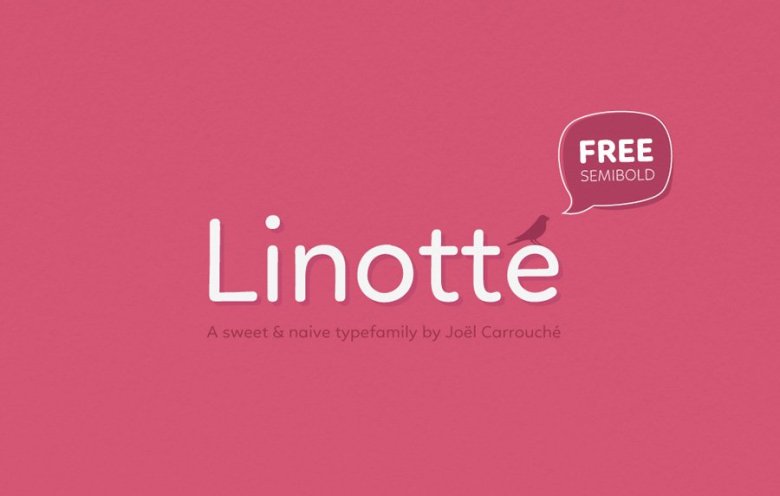
Linotte SemiBold
Linotte is a rounded sans family with good vibes. Slight irregularities give the typeface a warm and naive look, while the solid geometric construction allows good legibility in long texts and small sizes. Linotte Semibold is available for free download.